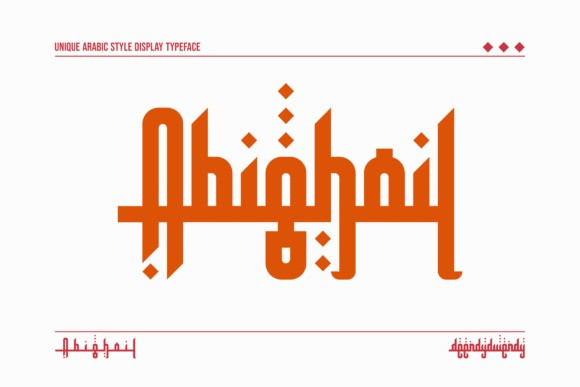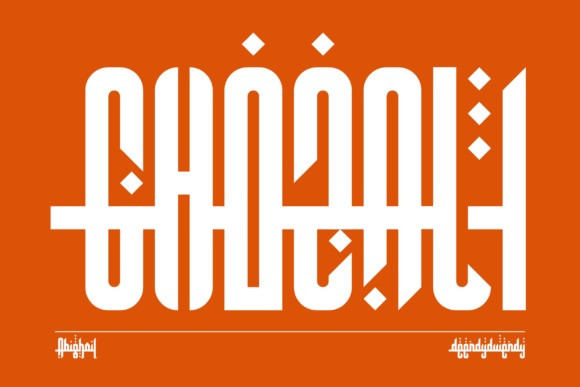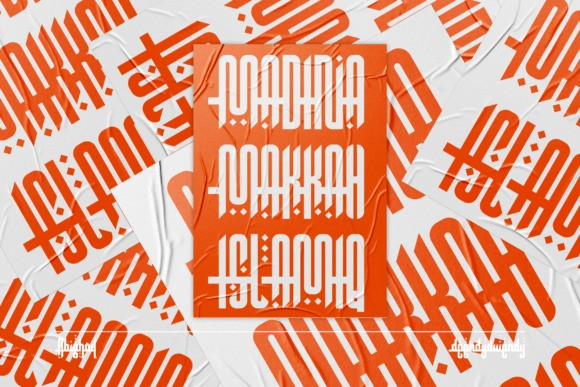
Abighoil Font
Presenting Abighoil, this font has a style like Arabic letters made in a unique, modern, and fun shape.
Abighoil is suitable for branding projects, product design, packaging, photography, watermarking, invitations, advertisements, social media posts, and any projects that need fonts in Arabic styles.